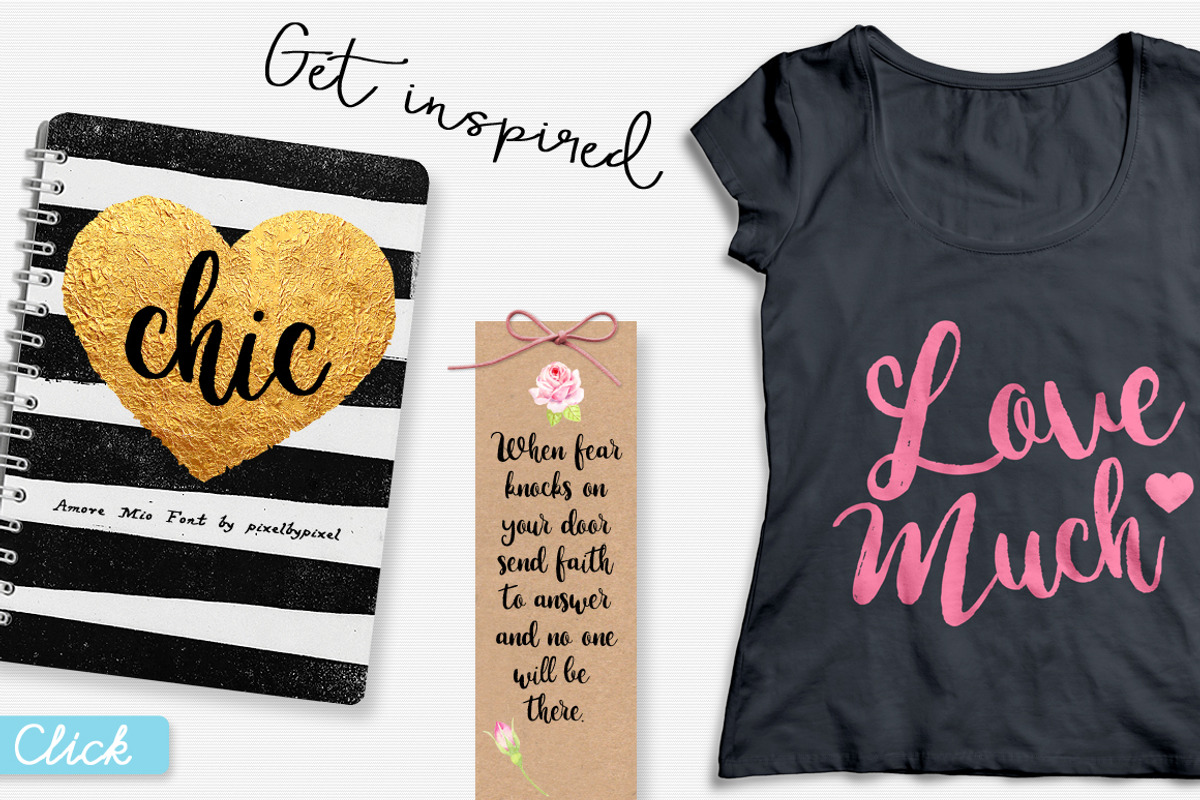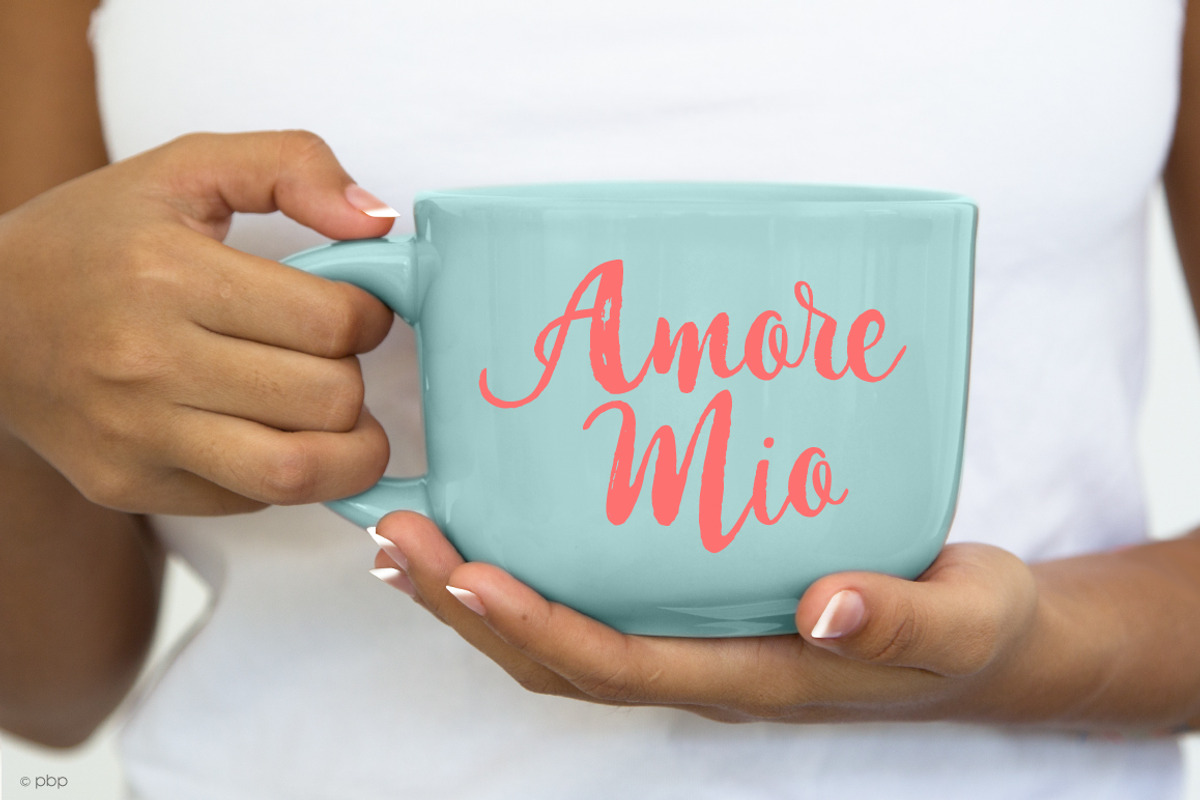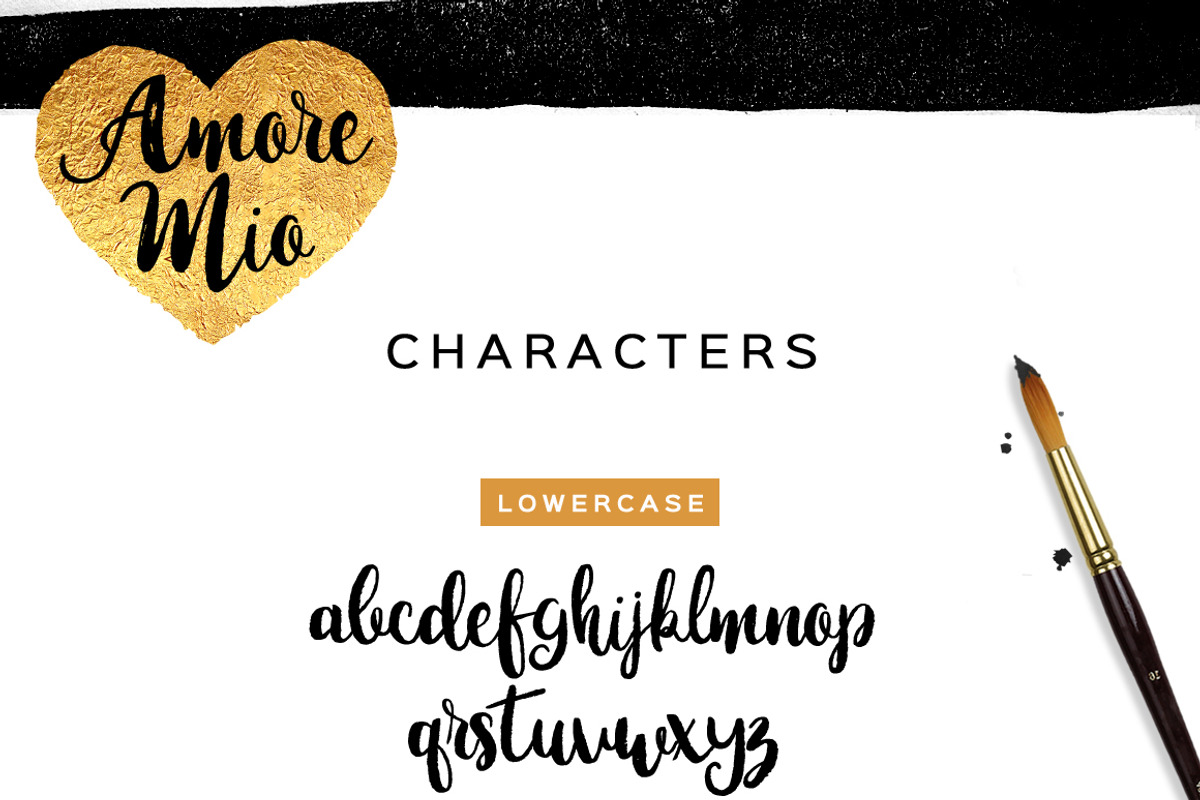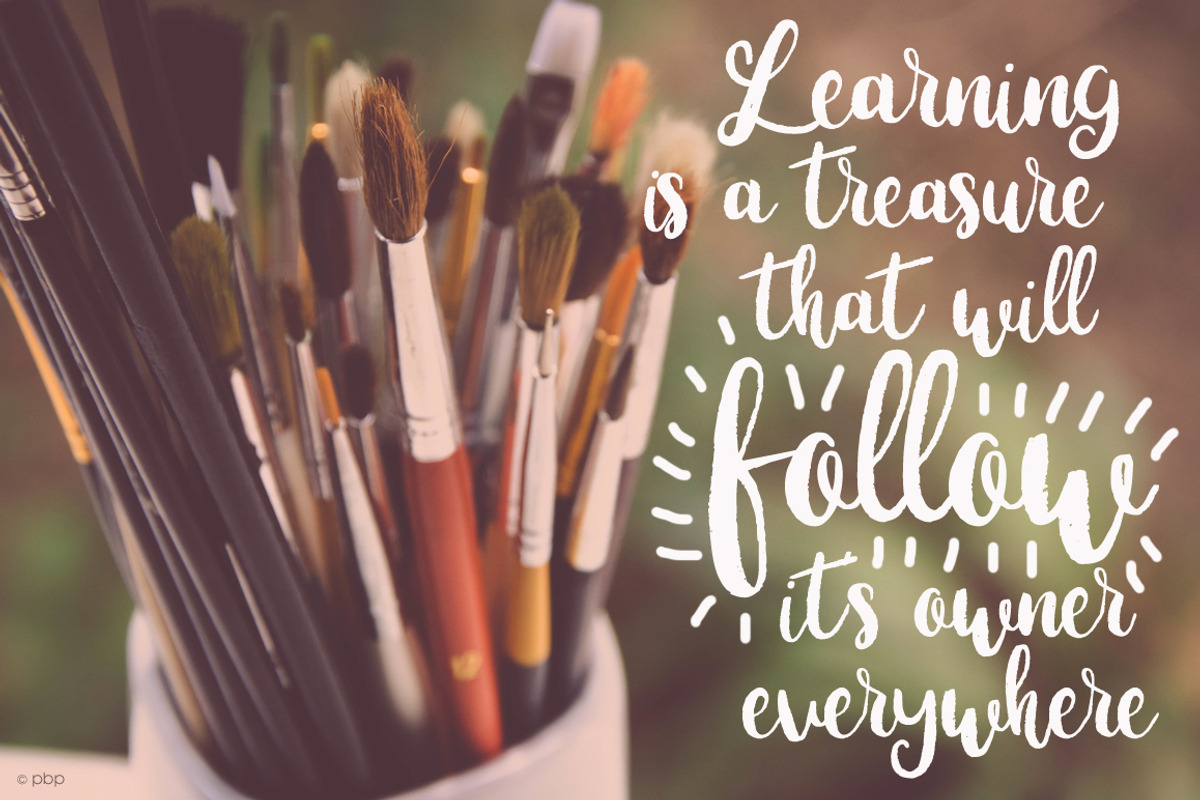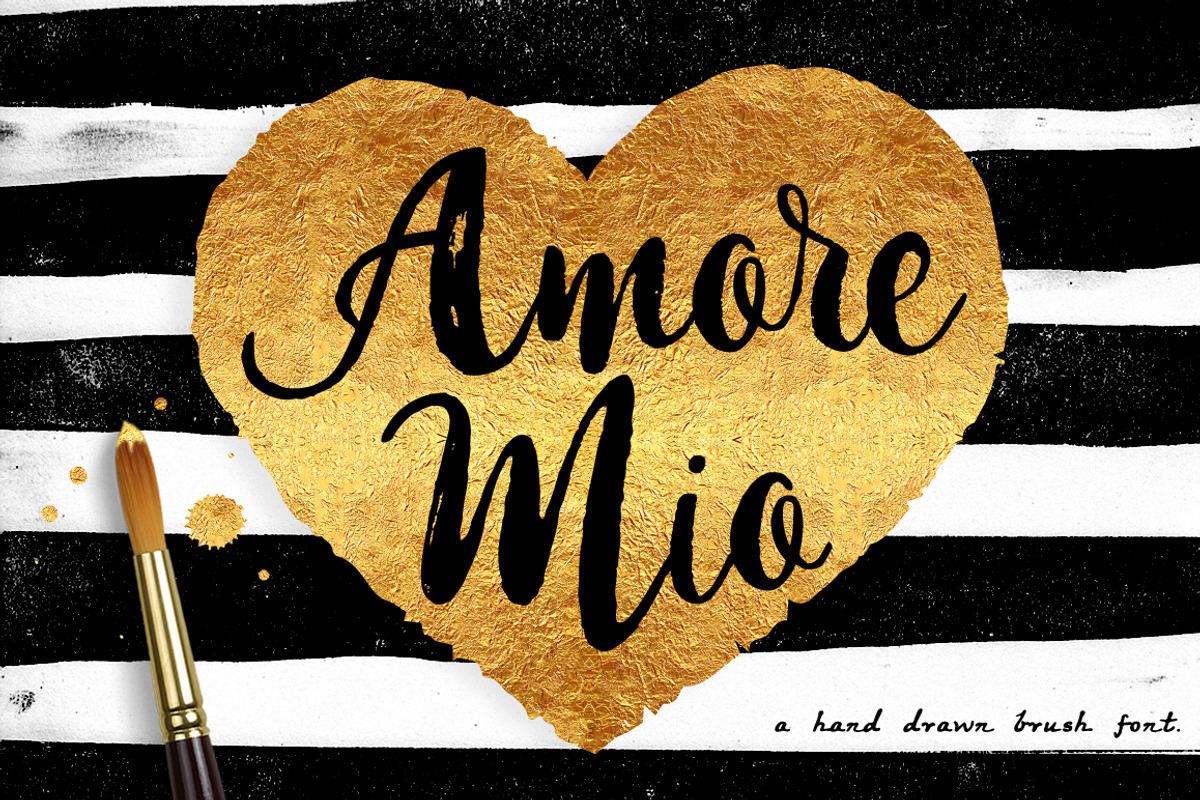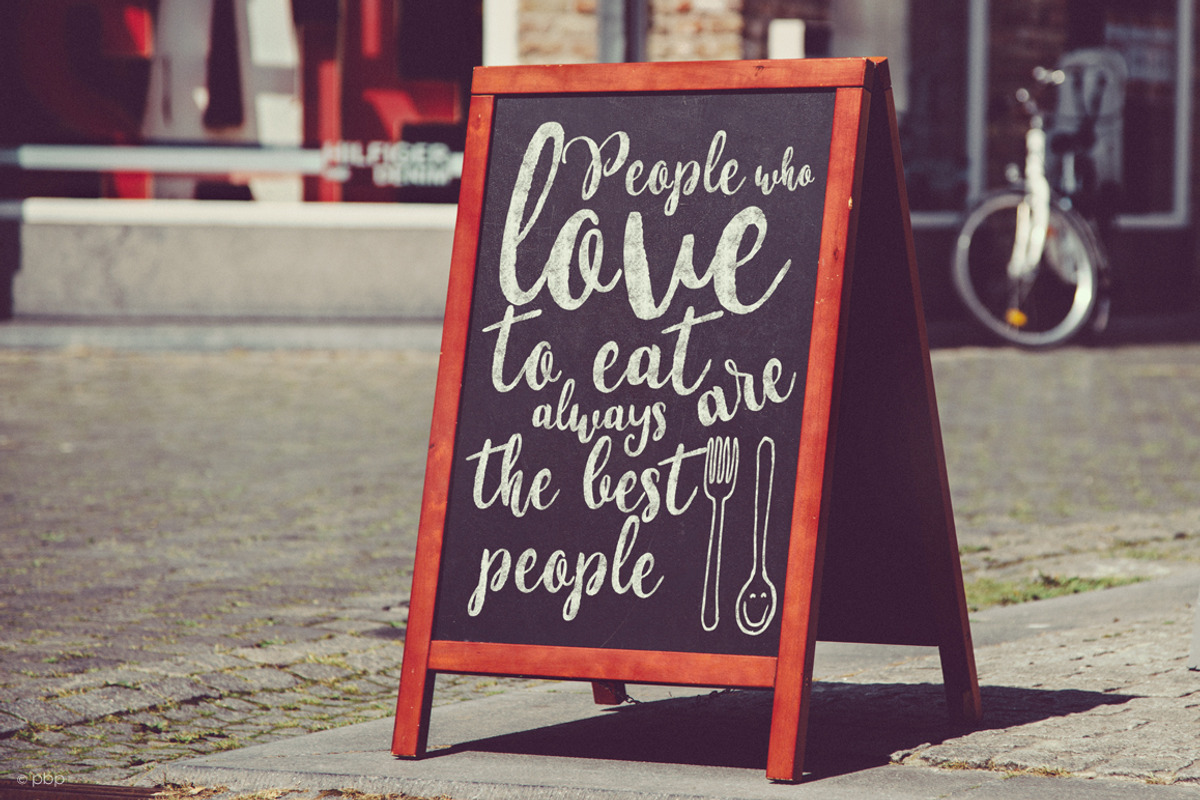
Amore Mio Brush Font
Amore Mio Brush Font by pixelcolours is a font selected for branding, posters, packaging, typography.
Why Amore Mio Brush Font is worth a look
Amore Mio Brush Font by pixelcolours fits naturally into Branding, posters, packaging, typography.